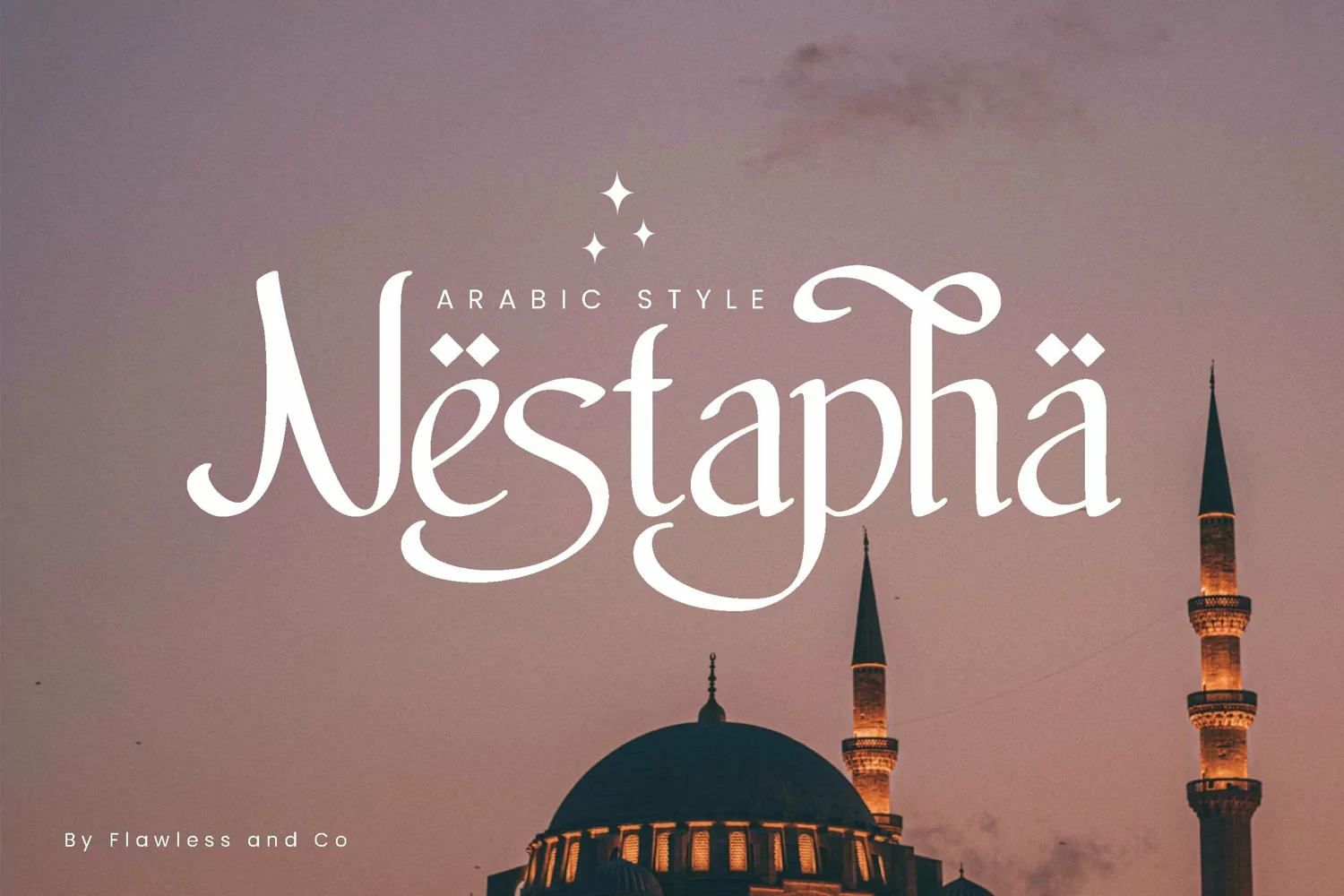
Nestapha
Nestapha is an elegant Arabic-style font that is perfect for a variety of design applications, for example those related to Ramadan.
There's some connected letters and some alternates that suitable for any graphic designs such as branding materials, t-shirt, print, business cards, logo, poster, t-shirt, photography, quotes .etc
This font support for some multilingual. Also contains uppercase A-Z and lowercase a-z, alternate character, numbers 0-9, and some punctuation.